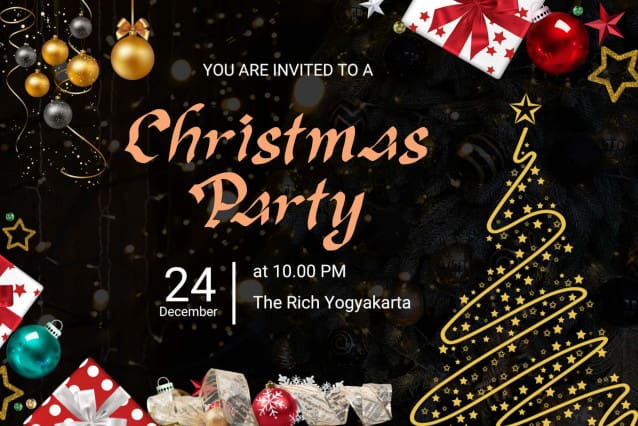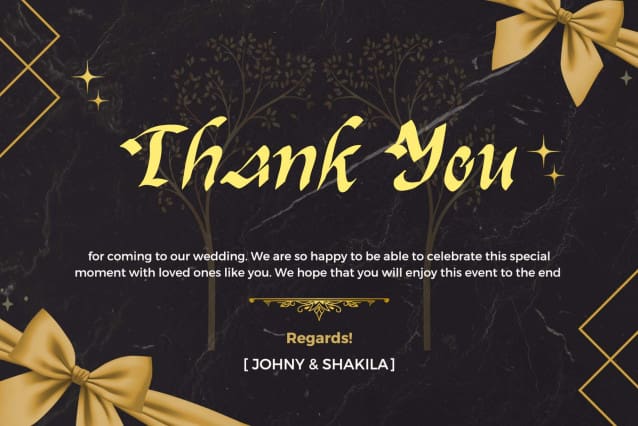
Christmas Sabila Font
Christmas Sabila Font is an elegant and simple blackletter font. This font is equipped with uppercase, lowercase, numerals, punctuation, and multilingual support. very suitable for Christmas, weddings, invitations, certificates, Valentine’s, spring, summer, winter, parties, and others.